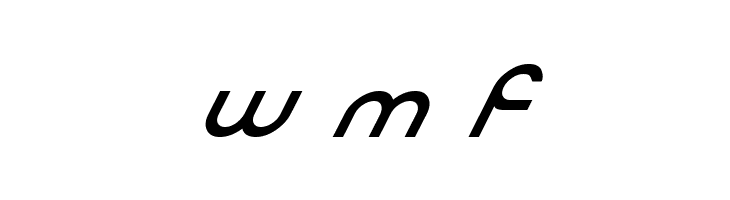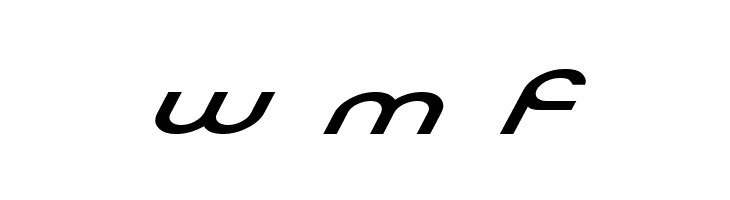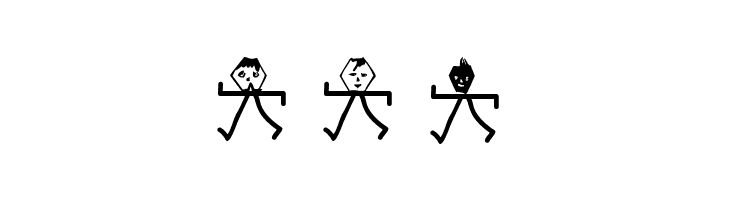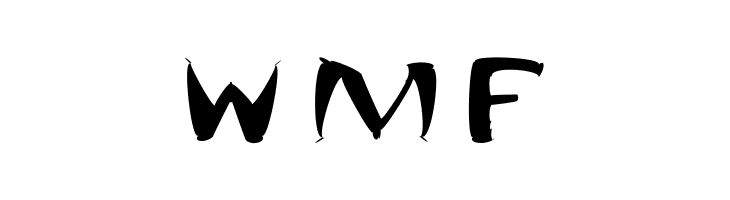
A playful, bold font with a whimsical and cartoonish design.
A bold, geometric font with a modern and sleek design.
A bold, italic, and modern font with a dynamic and sleek style.
A modern, geometric, and bold condensed font with a futuristic style.
A bold, condensed, and geometric font with a modern style.
A bold, condensed, and italic font with a modern, dynamic style.
A dynamic, condensed italic font with bold strokes and a modern, sleek style.
A futuristic and geometric font with bold strokes and unique character shapes.
A bold, futuristic geometric font with smooth, rounded edges.
A modern, flowing italic font with smooth, continuous strokes.
A sleek, modern italic font with smooth curves and a dynamic appearance.
A bold, artistic font with eye motifs and abstract, whimsical design.
A bold, hand-drawn font with dynamic, irregular strokes and artistic flair.
Intricate symbols inspired by ancient Mayan and Mexican iconography.
A playful and decorative collection of medical-themed symbols and illustrations.
A playful decorative font with unique stick figure characters.
Cartoonish, illustrative font with each character formed by comic-style drawings.
A decorative font featuring intricate, tribal-inspired glyphs of animals and mythical creatures.
A modern, geometric font with clean lines and a slightly condensed style.
A bold, geometric font with clean lines and a modern aesthetic.
A modern, italicized font with clean lines and a geometric structure.
A bold, geometric stencil font with a modern, industrial feel.
A whimsical and abstract collection of circular designs with playful, artistic elements.
A whimsical, illustrated pictogram font with eclectic, detailed black-and-white drawings.
A bold, playful handwritten font with thick, rounded strokes and a dynamic slant.
A bold, playful font with thick, rounded strokes and a hand-drawn appearance.
A bold, playful, and hand-drawn style font with a whimsical appearance.